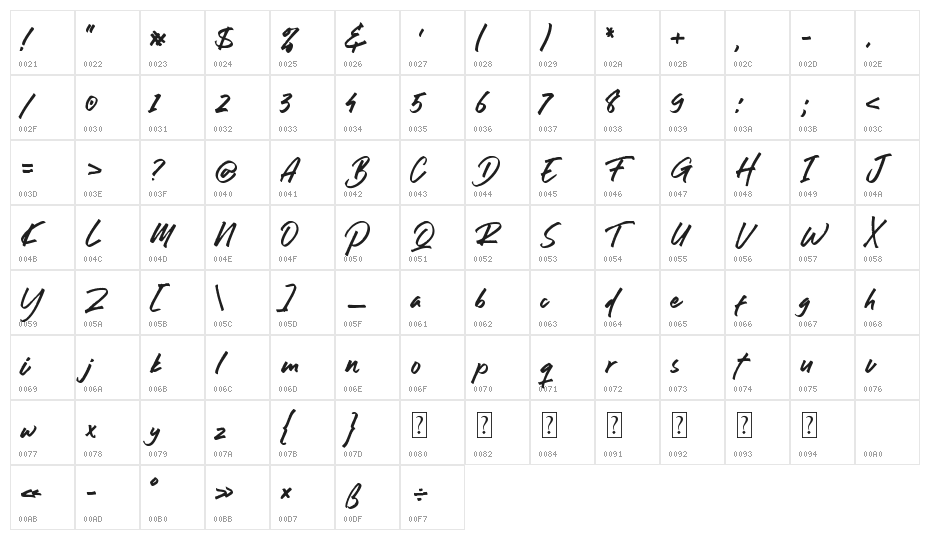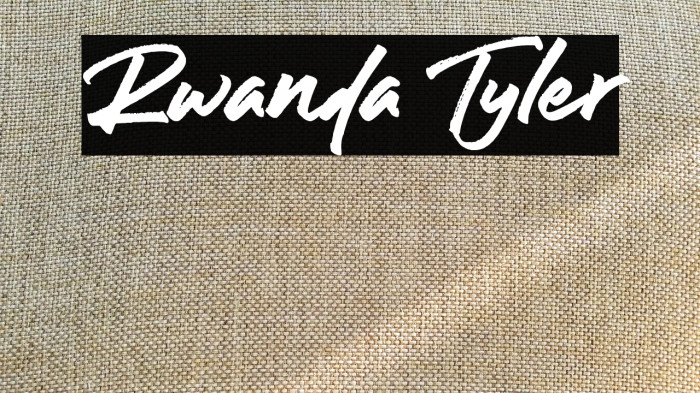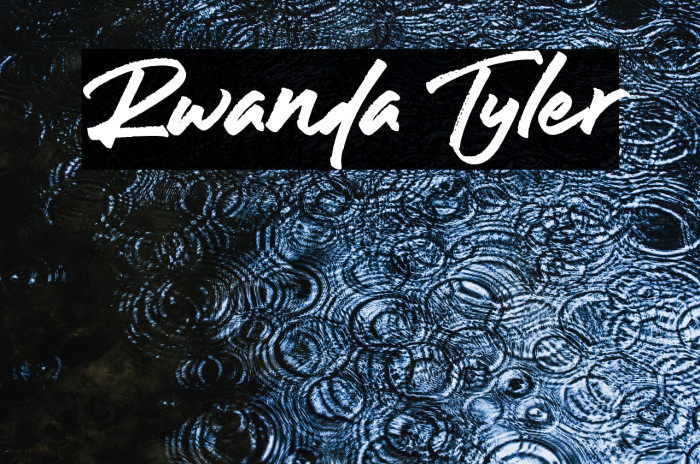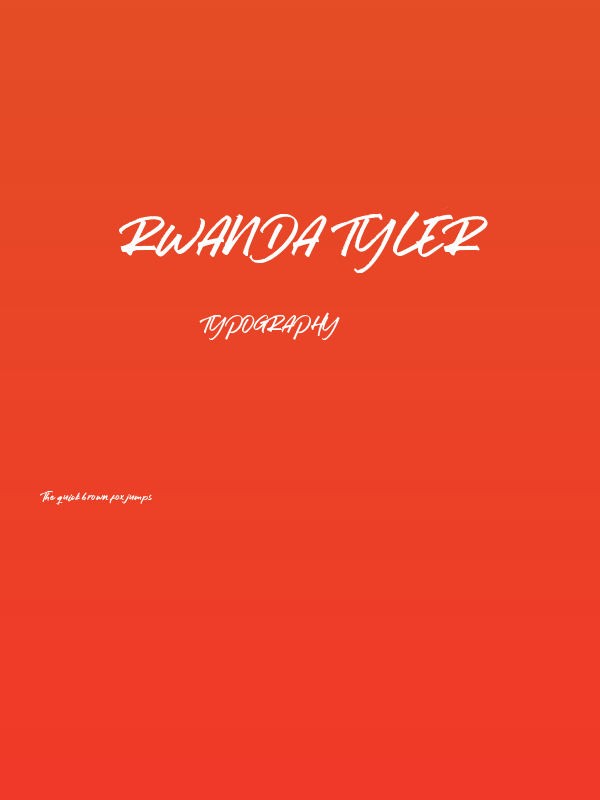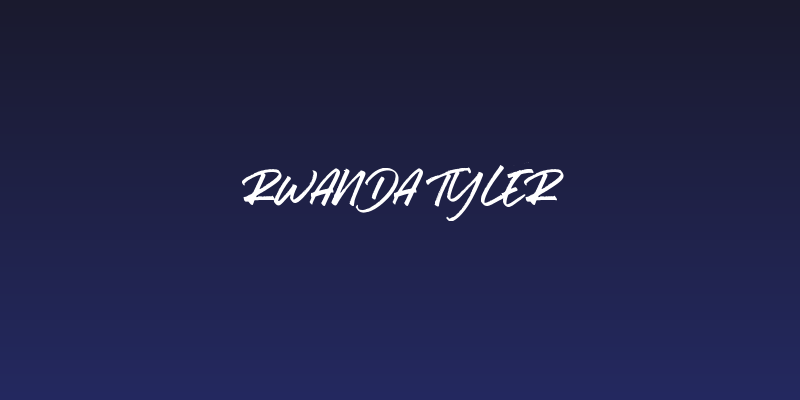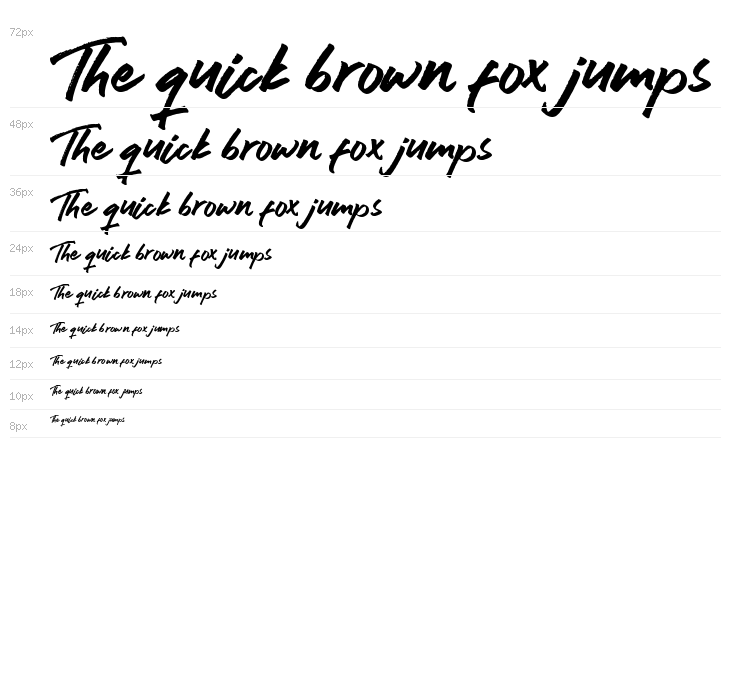
Rwanda Tyler Font
Rwanda Tyler Description
This font features a dynamic and expressive handwritten style, characterized by its bold, sweeping strokes and fluid motion. The uppercase letters are particularly striking, with a sense of movement that suggests a quick, confident hand. The lowercase letters maintain this energetic flow, providing a cohesive look across the alphabet. Numbers and special characters are equally bold, ensuring consistency throughout. The overall appearance is both artistic and legible, making it suitable for creative projects that require a personal touch.
| Proposed Projects | Ideal for branding, logos, invitations, and artistic projects that require a personal, handwritten touch. |